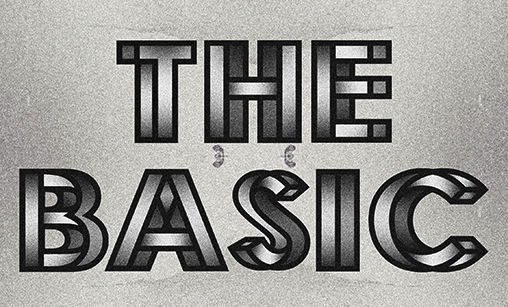
Alberto Alvarez
Madrid-based designer of Fusion (2014, a 3d font), Black (2014, an alchemic typeface) and Magma (2014, an experimental geometric typeface).